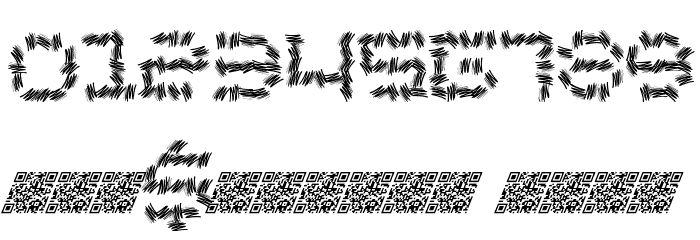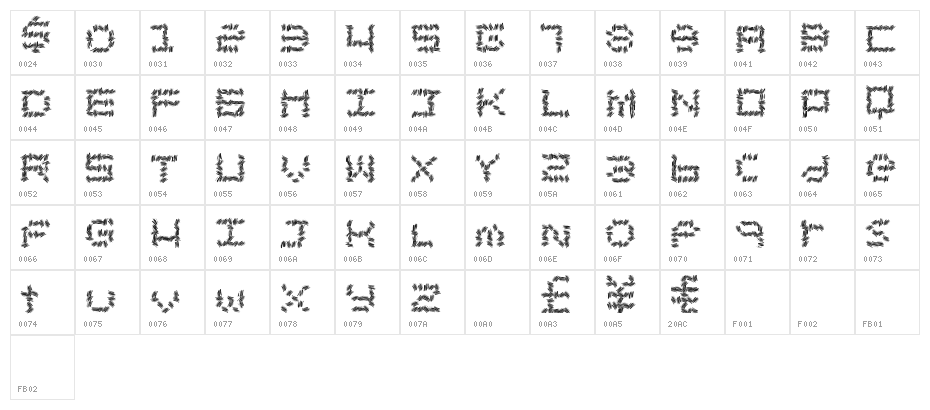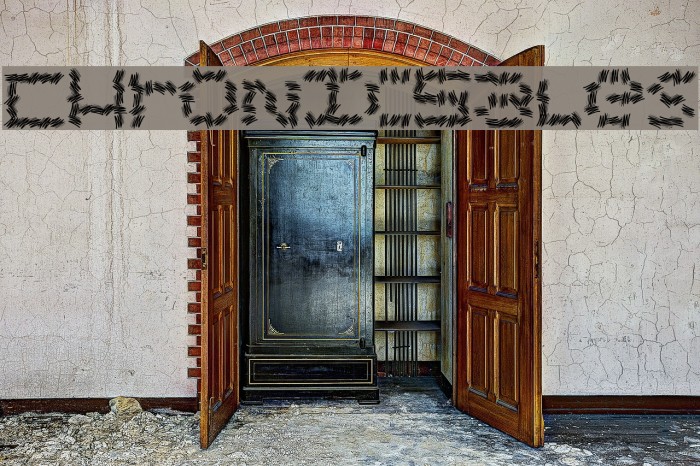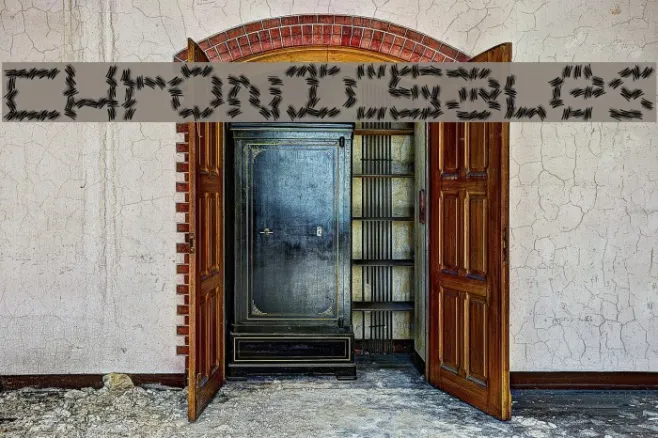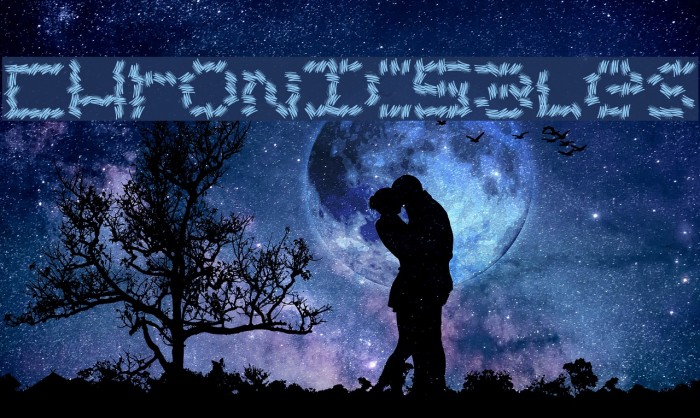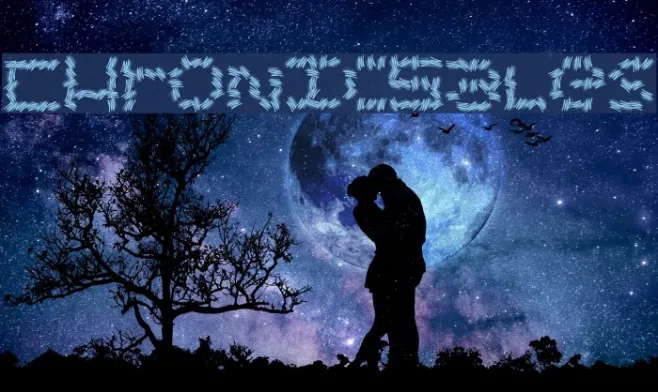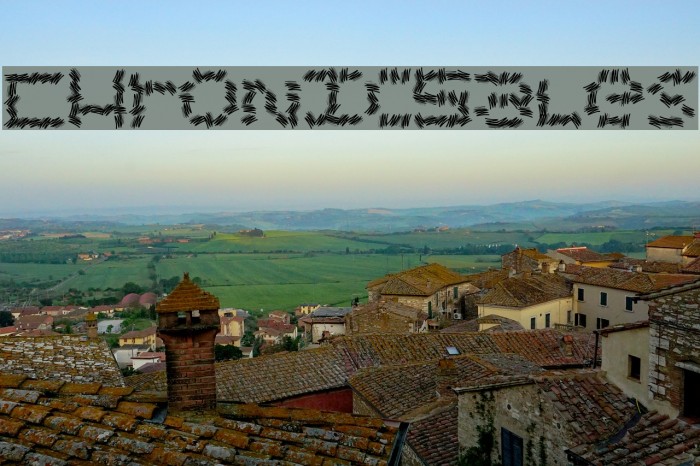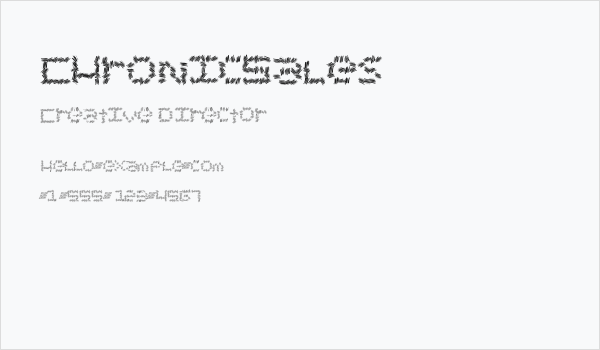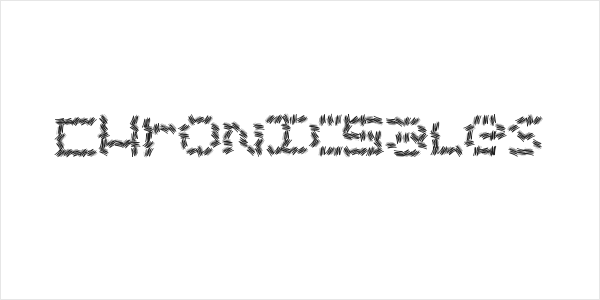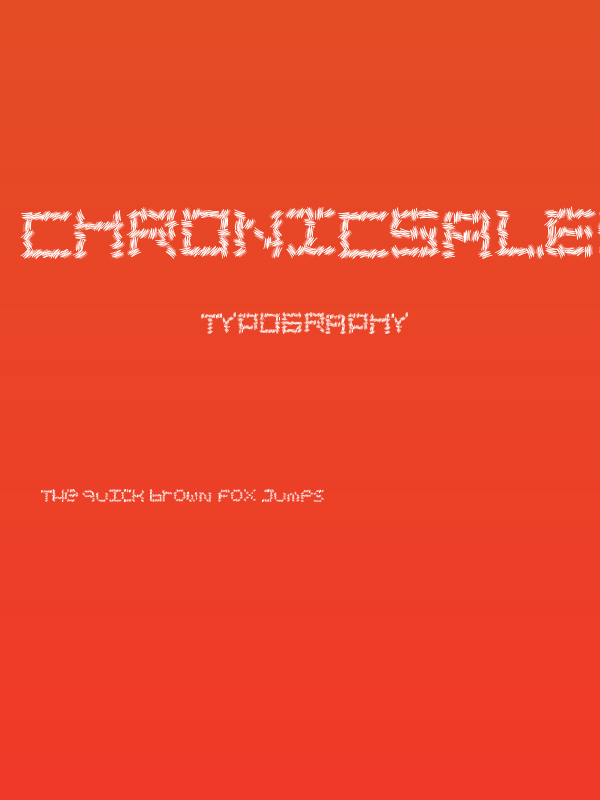
ChronicSales Font
ChronicSales Description
This font features a unique and edgy design, characterized by its spiky, jagged edges that give it a dynamic and energetic appearance. The characters are bold and attention-grabbing, making it ideal for projects that require a strong visual impact. The uppercase and lowercase letters maintain a consistent style, with each character appearing as if it is composed of sharp, angular strokes. The numbers and special characters follow the same design principles, ensuring a cohesive look across all elements. This font is perfect for creative projects that aim to convey a sense of movement and intensity.
| Proposed Projects | Ideal for posters, album covers, branding for edgy products, and any design needing a bold statement. |